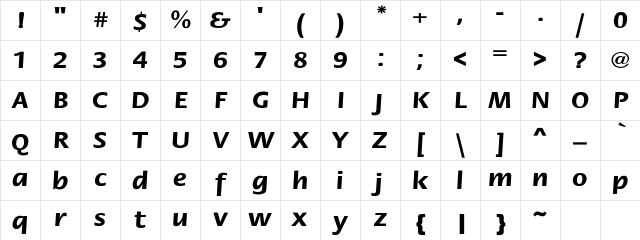
Rosamunde Extended Bold Bold
Design Context for Rosamunde Extended Bold
Rosamunde Extended Bold is a composed and adaptable typeface that performs quietly and consistently across a wide range of design contexts. Its bold stroke weight gives it real presence on the page.